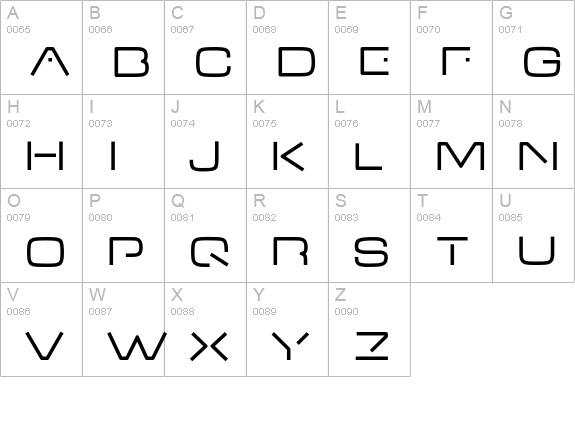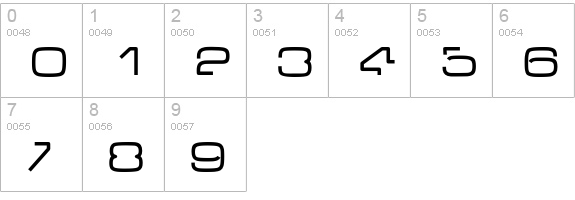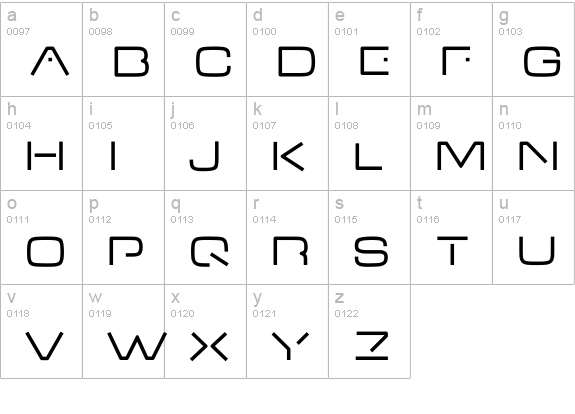
Vdubleyew Font Details
Vdubleyew font is a stunning display font that effortlessly captures attention with its unique and bold design. Crafted with meticulous attention to detail, this font is perfect for adding a touch of sophistication and creativity to any project. The Vdubleyew font is characterized by its sleek and modern letterforms, featuring sharp angles and clean lines that exude a sense of elegance and professionalism. Whether used for headlines, logos, or even body text, this font will make a lasting impression. One of the most remarkable aspects of Vdubleyew font is that it is available for free. Yes, you read that right! This amazing font can be freely downloaded at FontsMarket.com, making it accessible to designers, artists, and enthusiasts alike. With its high-quality and versatile design, Vdubleyew font opens up a world of possibilities without any cost. With its extensive character set, including uppercase and lowercase letters, numbers, symbols, and punctuation marks, Vdubleyew font offers endless possibilities for customization and creativity. It is also compatible with various design software and platforms, ensuring seamless integration into any project. Whether you're working on a professional branding project, a creative advertisement, or simply want to add a touch of elegance to your personal designs, Vdubleyew font is the perfect choice. Its bold and eye-catching design, coupled with the convenience of being freely available to download at FontsMarket.com, makes it a must-have for any designer or enthusiast seeking to elevate their work to new heights.